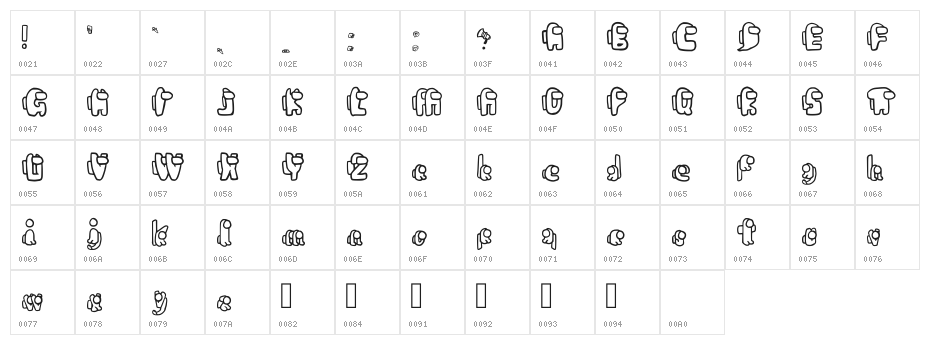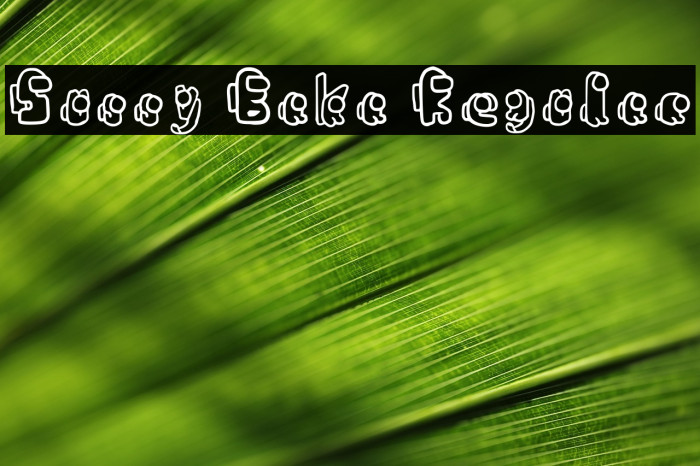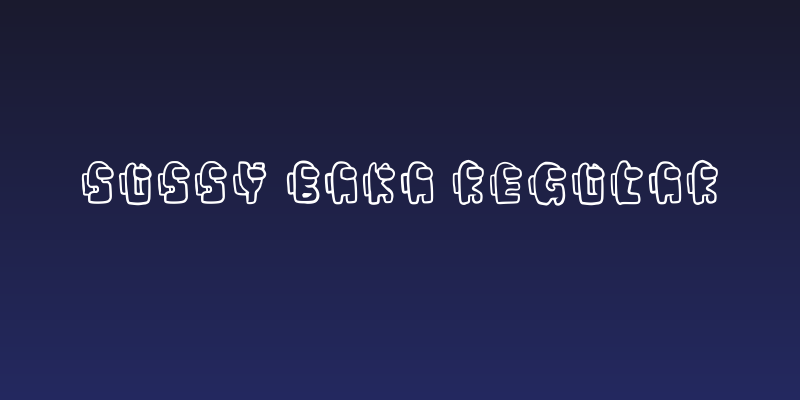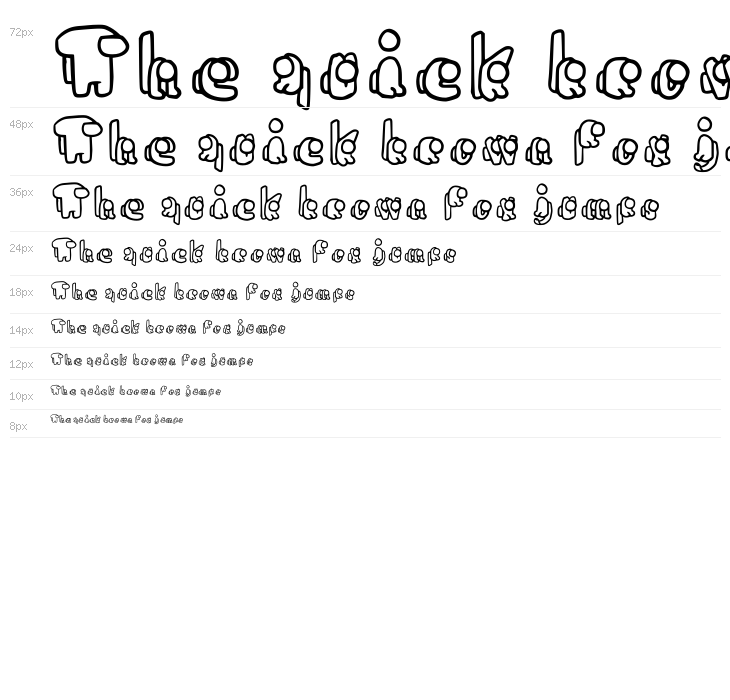
Sussy Baka Regular Font
Sussy Baka Regular Description
This font features a playful and quirky design with bold, rounded characters that have a unique, hand-drawn appearance. The letters are outlined with a thick, consistent stroke, giving them a cartoonish and whimsical feel. Each character has a distinct, bubbly shape, making the font stand out with its creative and artistic style. The uppercase and lowercase letters maintain a consistent design, while the numbers and special characters complement the overall aesthetic. This font is perfect for projects that require a fun and engaging visual element.
| Overall Style | Whimsical, Playful |
| Proposed Projects | Ideal for children's books, comic strips, playful branding, and creative posters. |